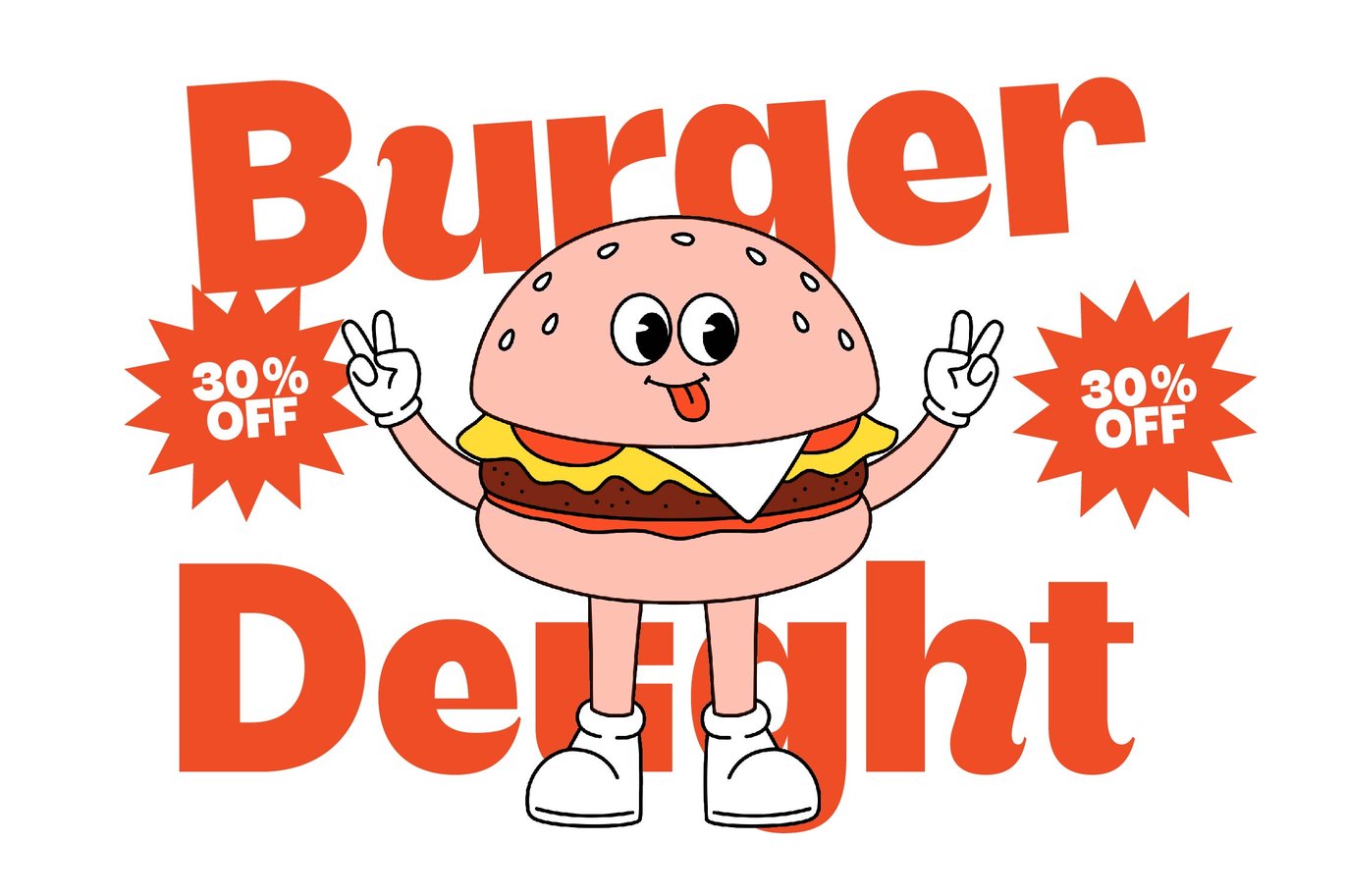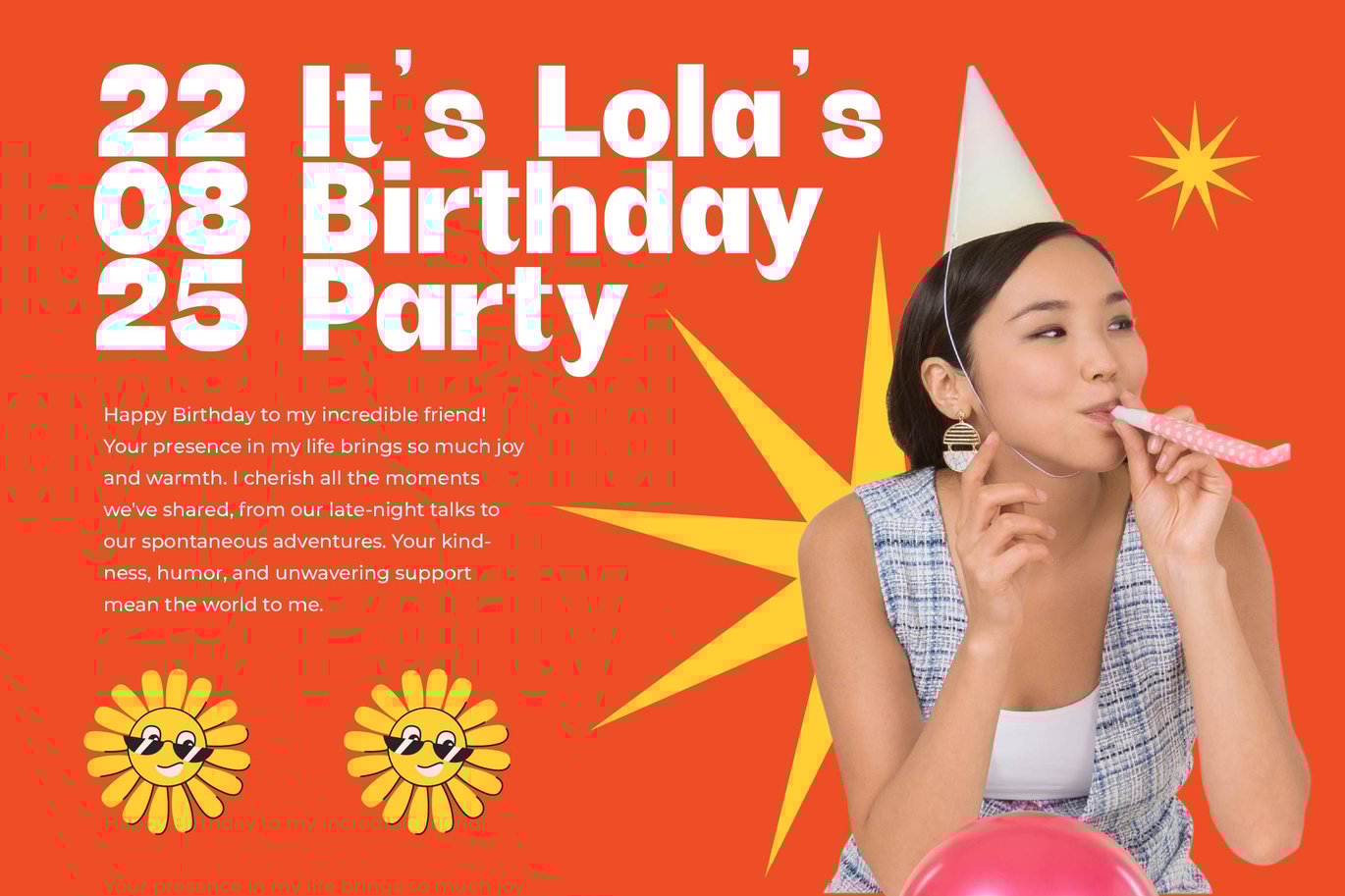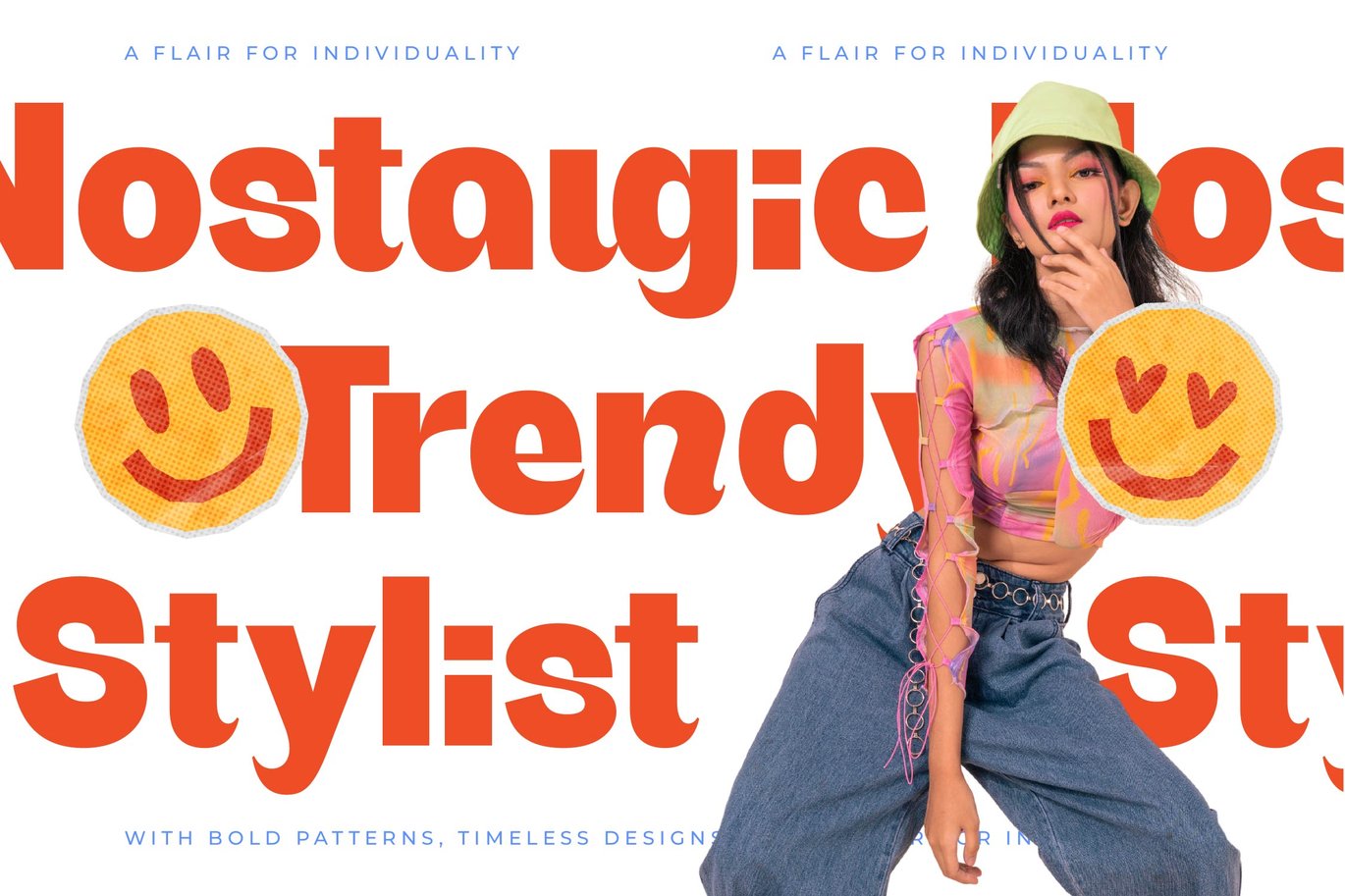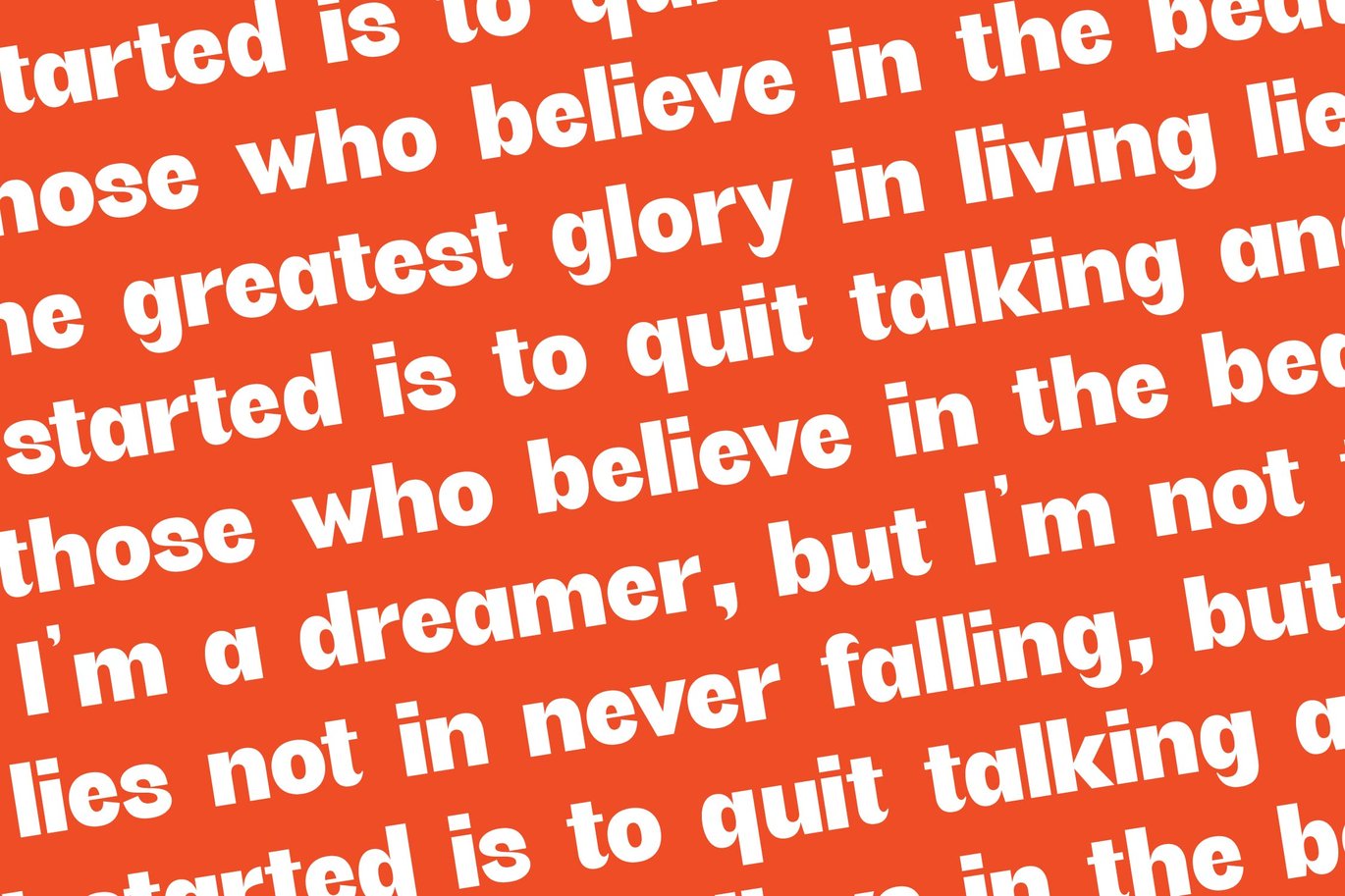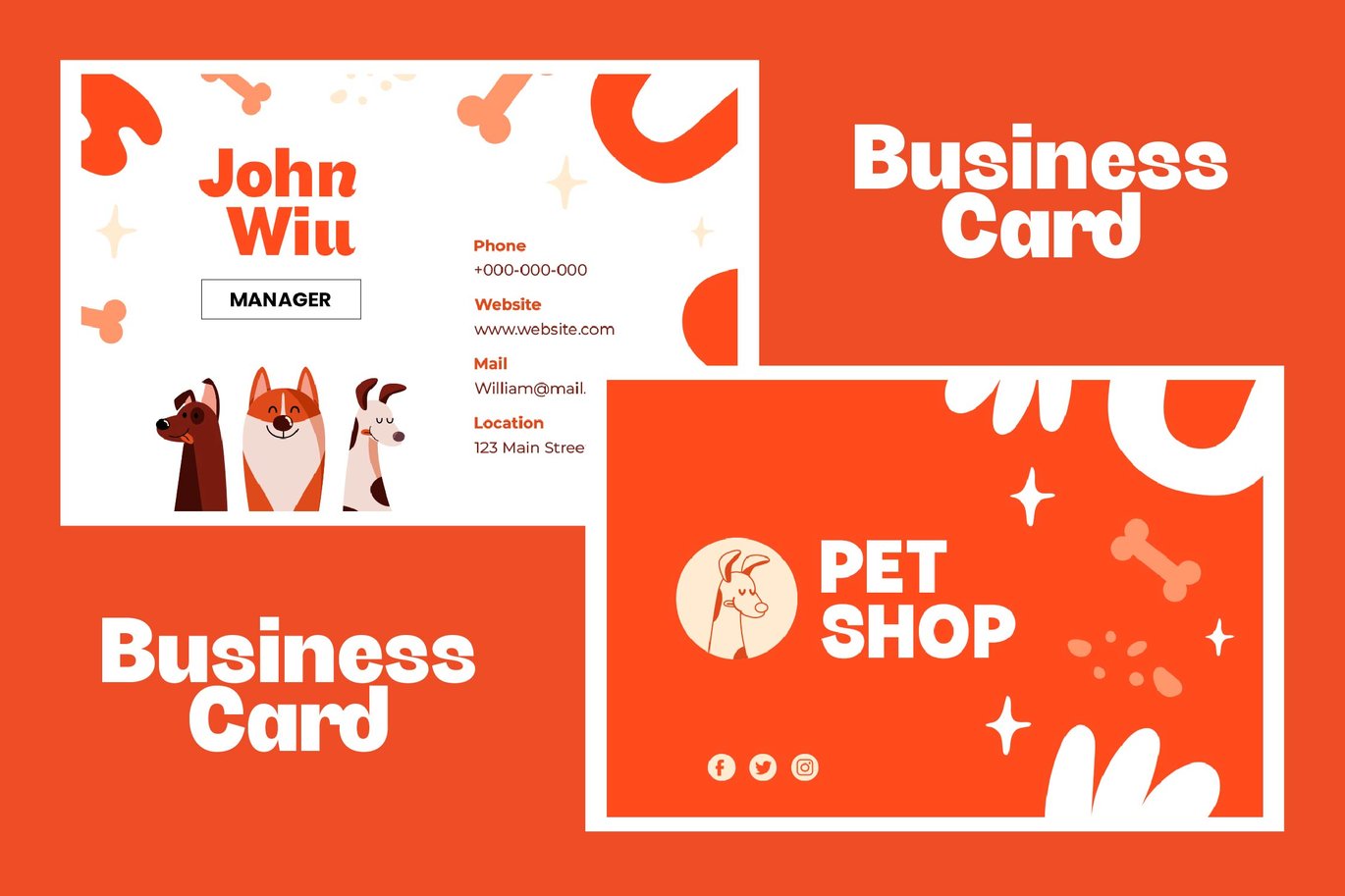
Bright Giftak - Sans Serif Display Font
Bright Giftak is a bold, fun, and cheerful display sans serif font inspired by retro cartoons, playful packaging, and colorful kids’ branding. Its chunky shapes, rounded edges, and friendly personality make it perfect for children’s books, toy packaging, sticker designs, posters, social media graphics, and any project that needs joyful, energetic typography.
The font carries a bright, bubbly vibe that instantly lifts the mood of any design.
With 10 ligatures and 15 alternates, Bright Giftak gives designers flexible options for creating expressive titles, quirky logos, dynamic layouts, and charming character-driven visuals. Its warm retro charm and bold simplicity make it an ideal choice for playful, creative, and family-friendly branding.